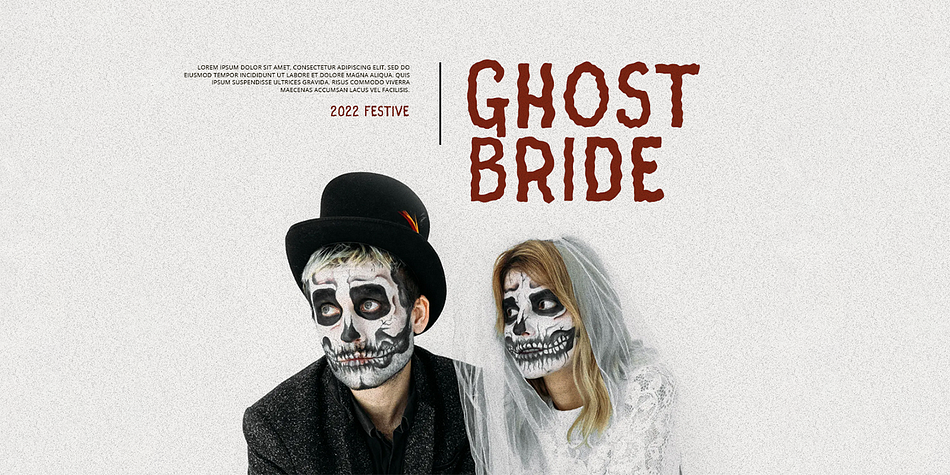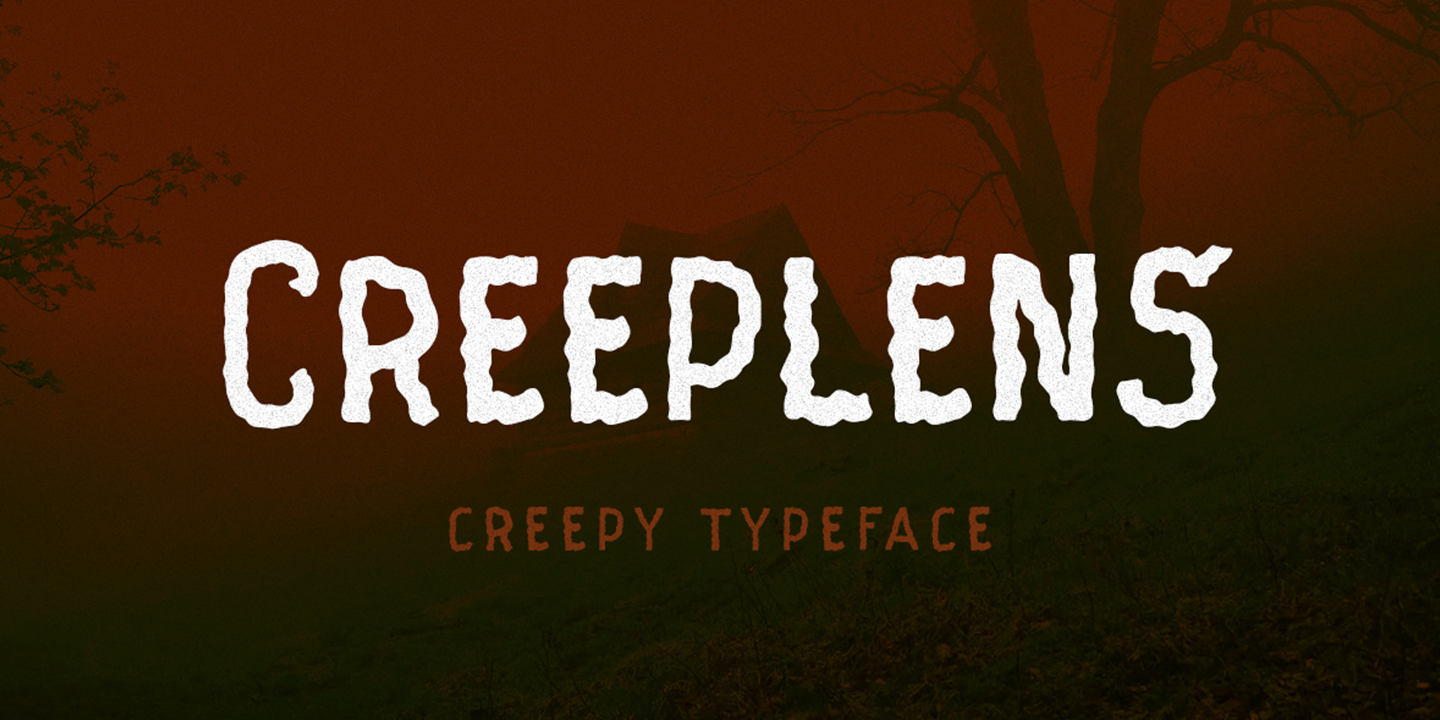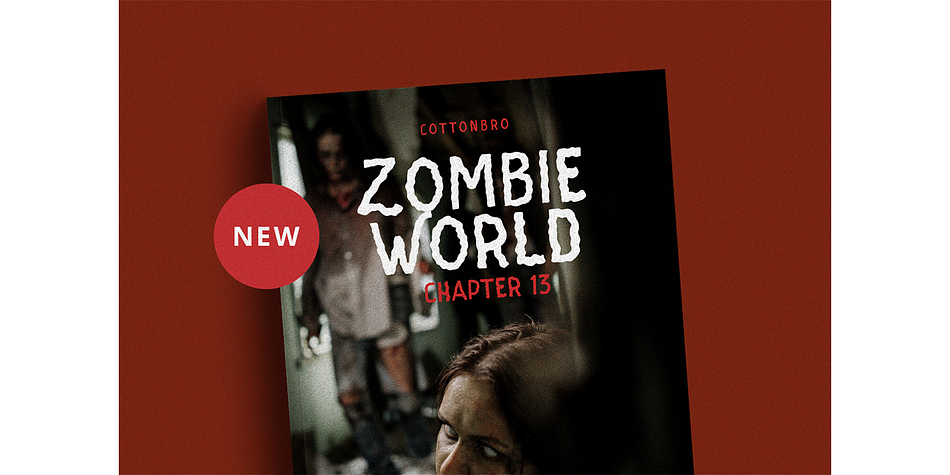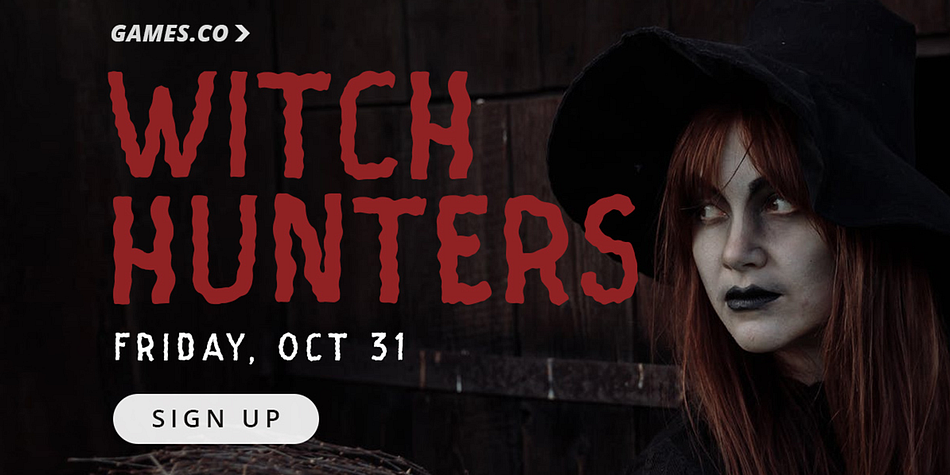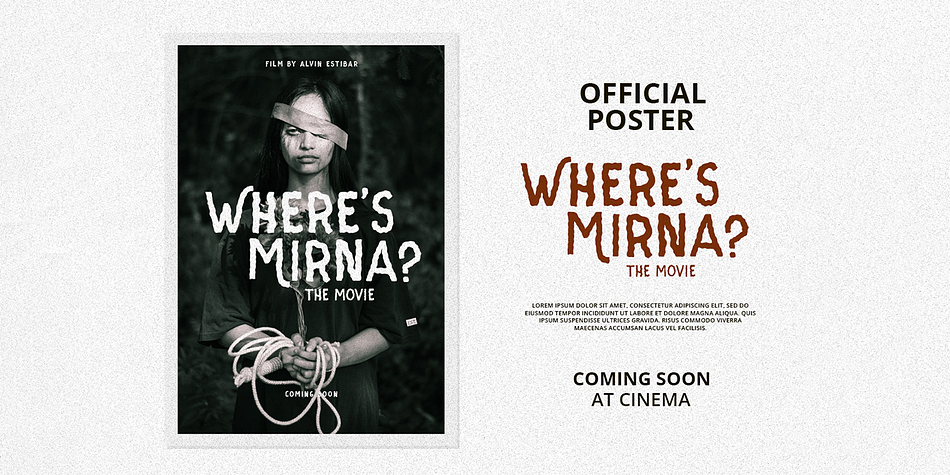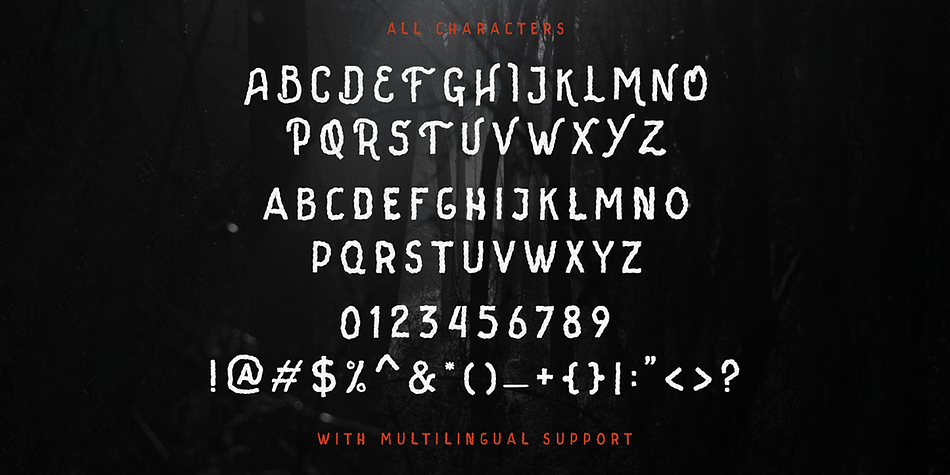
Designed by Hendry Juanda, Creeplens is a display and hand display font published by Letterhend Studio.
Introducing, Creeplens, a creepy typeface. This font perfectly made to be applied especially in poster, and the other various formal forms such as invitations, labels, logos, magazines, books, greeting / wedding cards, packaging, fashion, make up, stationery, novels, labels or any type of advertising purpose.
- alternates